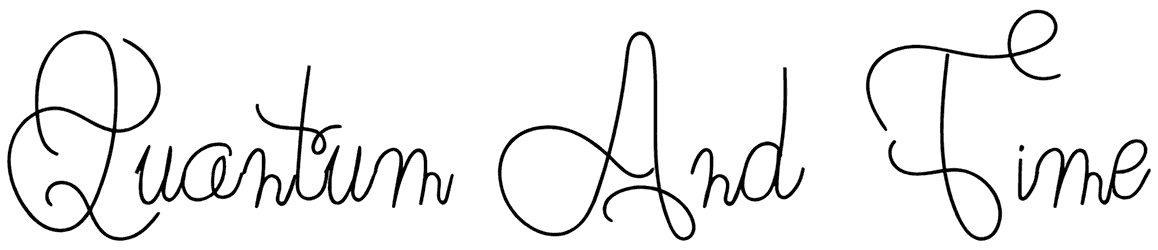
Quantum And Time Font
This is a script, handwritten font with an organic feel called Quantum And Time. This font is perfect for making signage, invitations, lettering, and more, despite the fact that its characters are so frail that they cannot be read easily.
Quantum and Time is a well balanced and delicate handwritten font. It is defined by beautiful curves and is perfect for fashion branding or editorial designs. Add it confidently to your projects, and you will love the results.